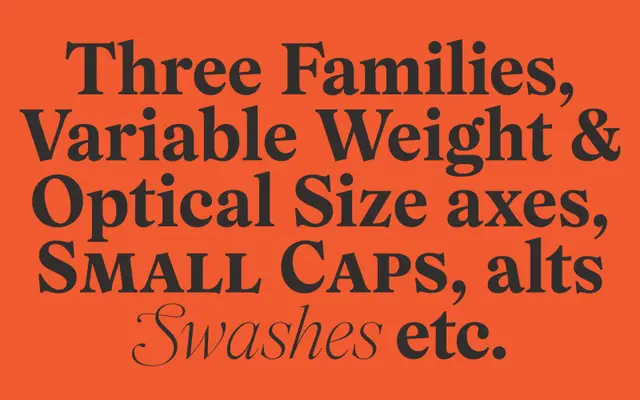
A three-optical-size serif family spanning 48 styles with a variable font axis covering weight and optical size.
Wulkan covers Text, Headline and Display optical sizes, each in eight weights from Thin to Black with matching italics, giving 48 static styles in total. Two variable fonts — upright and italic — expose continuous weight and optical-size axes for fine-grained control. OpenType features include oldstyle numerals, small caps, swash alternates for italics and three stylistic sets offering alternate forms for characters such as a, k, R and v.
Wulkan is a serif family spanning Text, Headline and Display optical sizes, with high-contrast letterforms suited to editorial and expressive typesetting. Its range from Thin to Black with italics and variable font support places it firmly in the contemporary serif category.